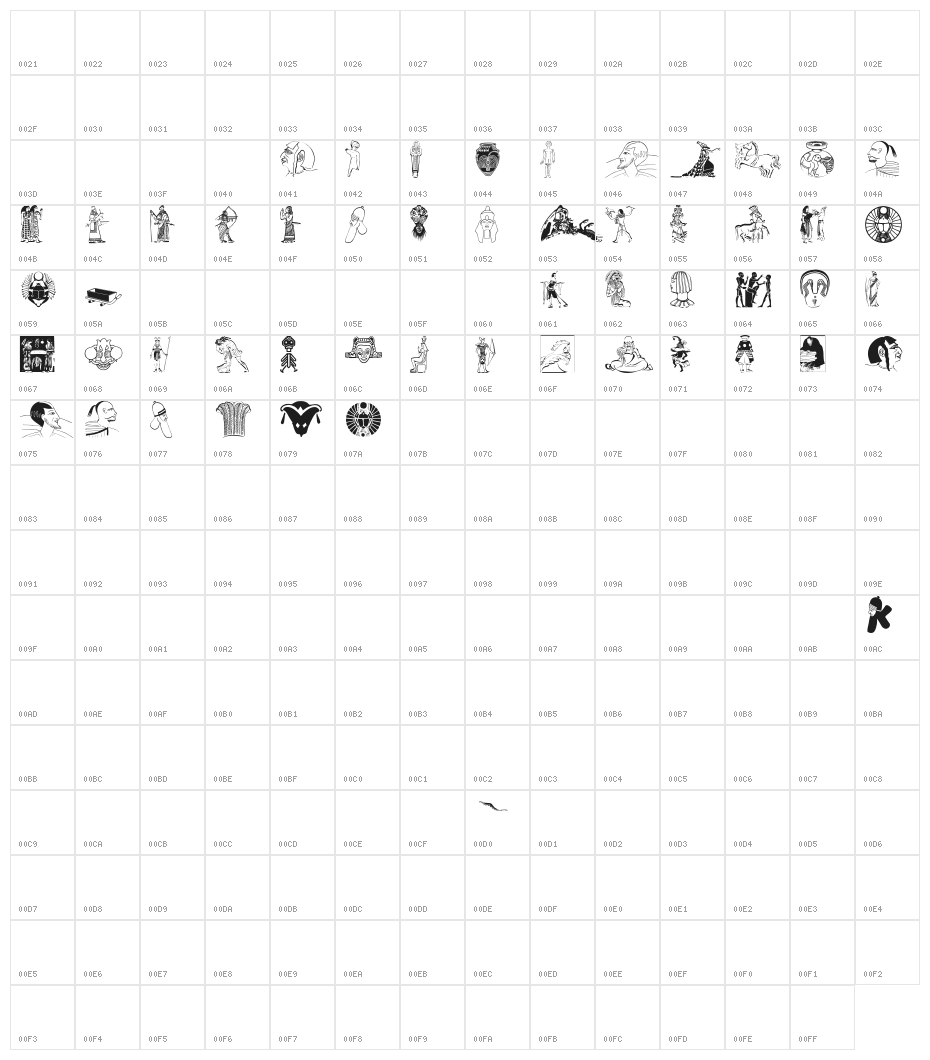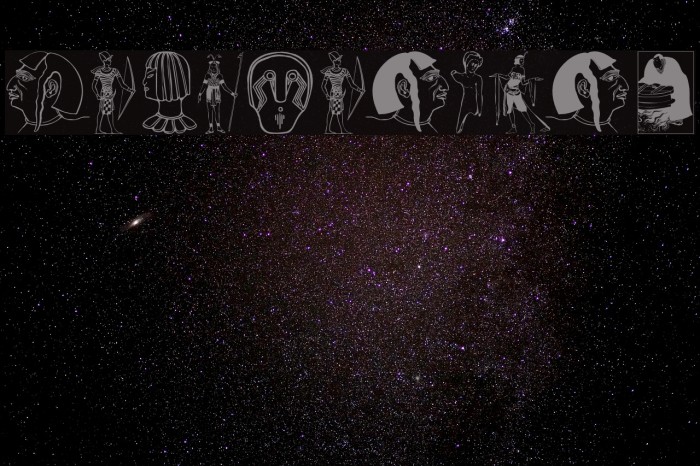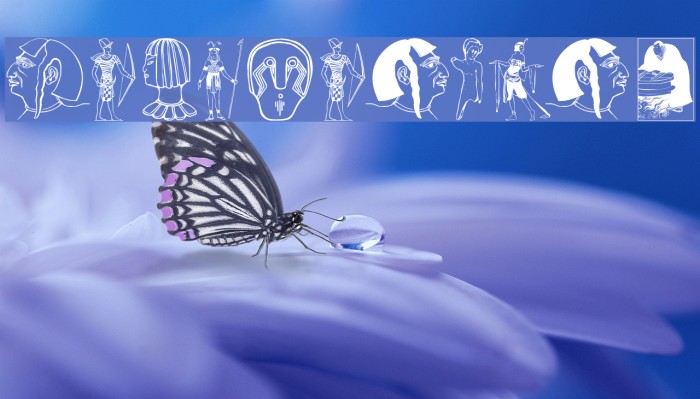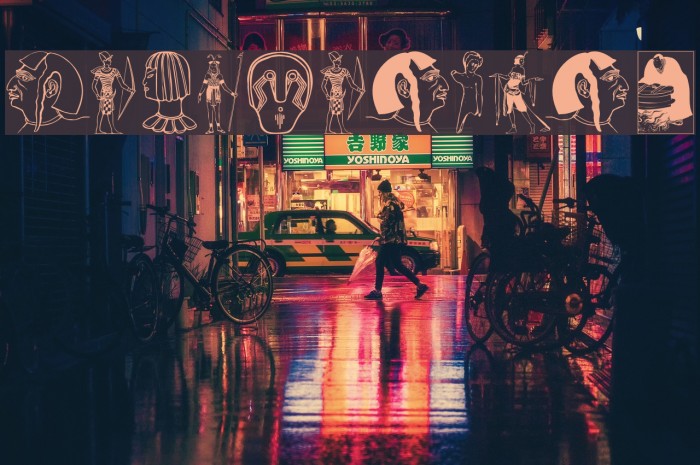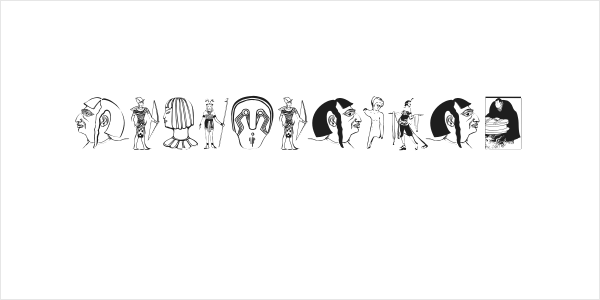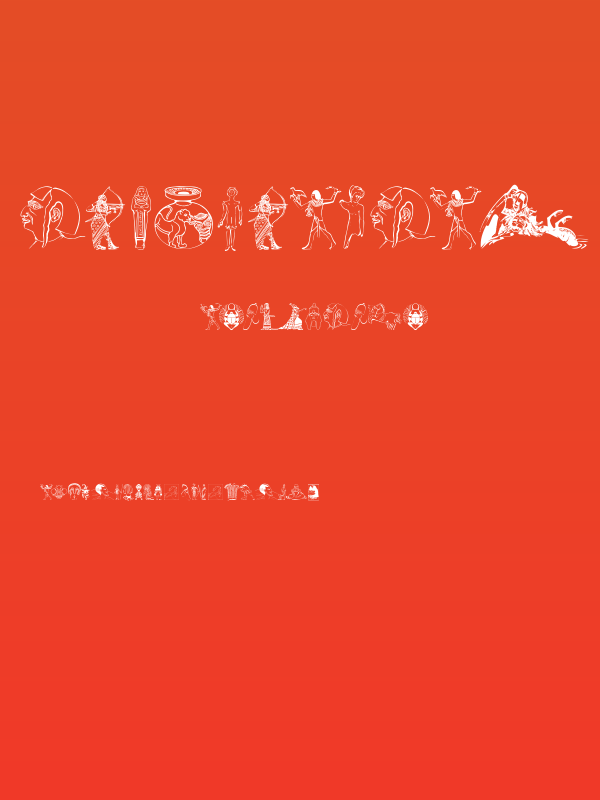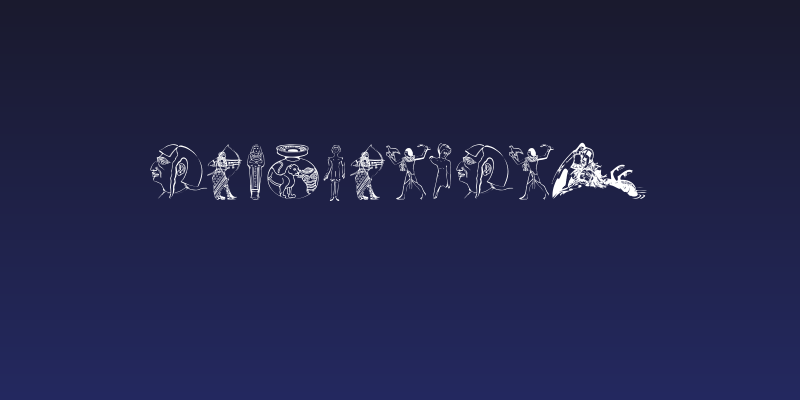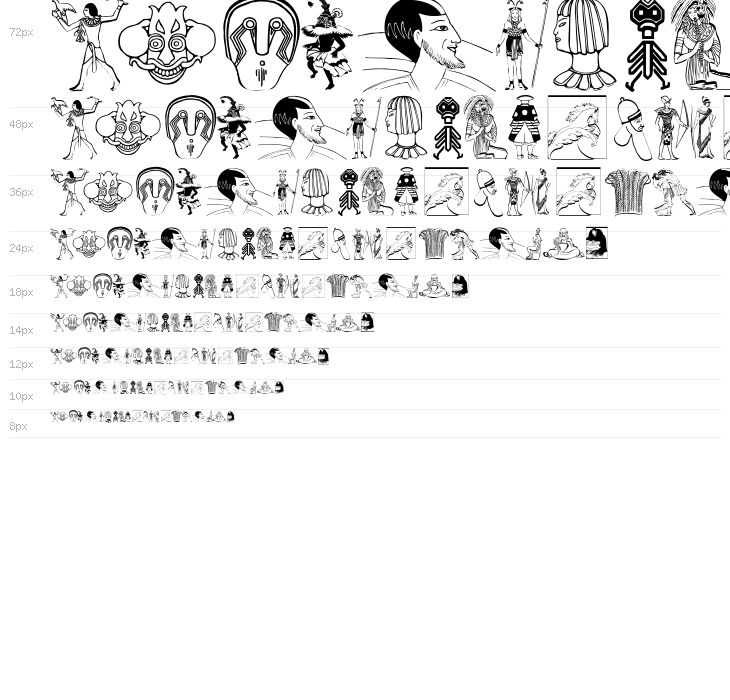
AncientBats Font
AncientBats Description
A decorative dingbat font featuring a collection of ancient and mythological illustrations, including figures, masks, pottery, animals, and artifacts, rendered in a detailed black-and-white line art style.
| Overall Style | Decorative, Historical |
| Use Case | Illustrative elements, Themed graphics, Decorative accents |
| Proposed Projects | Educational materials, museum brochures, history presentations, themed invitations, creative art projects. |